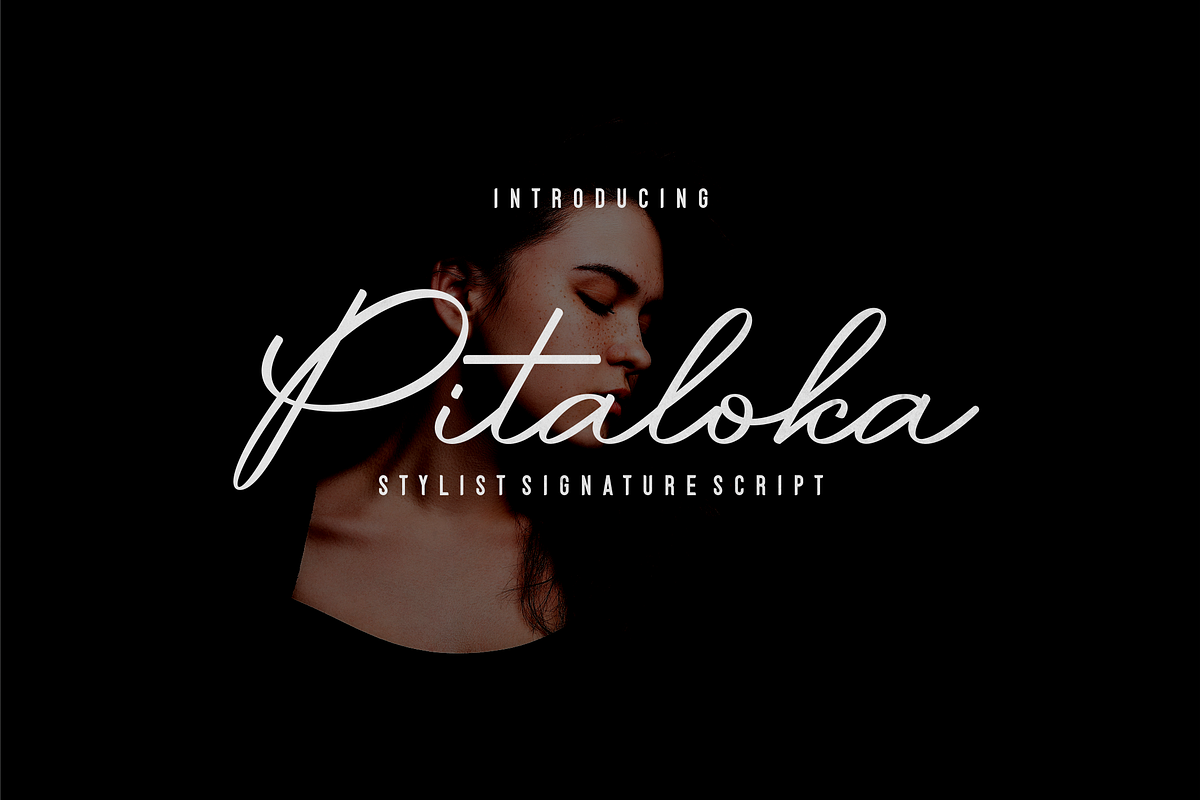
Pitaloka Stylish Signature Font Free Download is an elegant and modern handwritten script font designed to replicate the smooth and fluid strokes of a signature. With its flowing lines and stylish curls, this font is perfect for luxury branding, personal branding, wedding invitations, logos, and any project that requires a sophisticated yet personal touch.
Pitaloka Stylish Signature Font Free Download brings a refined, authentic feel to your designs, combining classic charm with modern elegance, ideal for projects where a personal and polished look is needed.